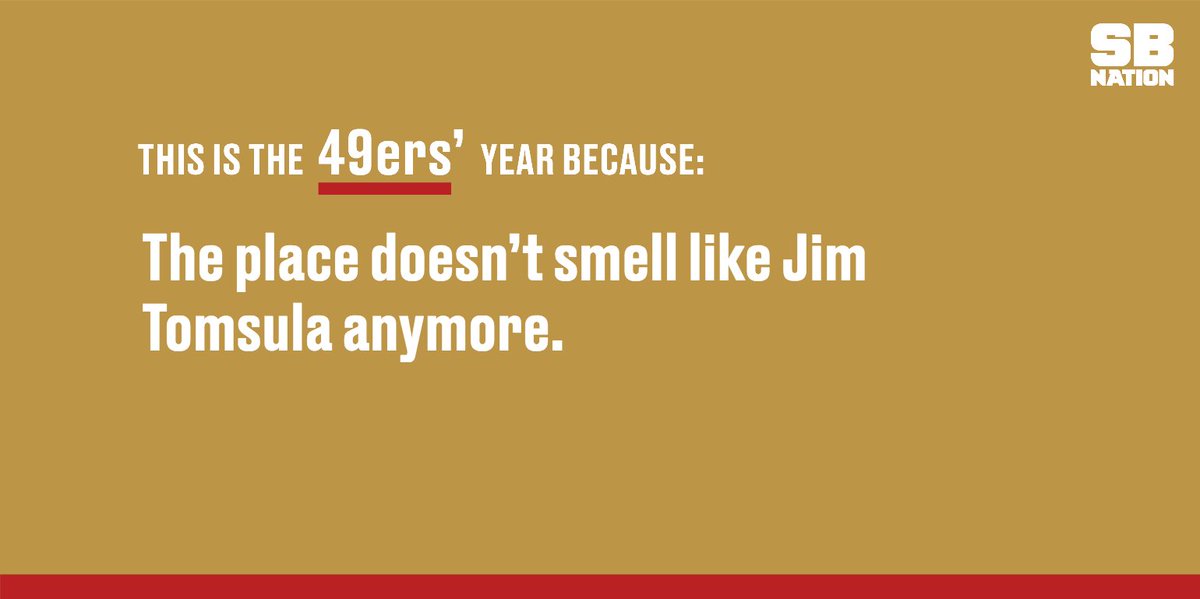
49ers Font Generator
49ers font generator. Nfl is short for national football league the highest level of professional football in the usa. This team had won five super bowl championships from 1981 to 1994. Download 8 free fonts by the designer nfl fonts for windows mac and linux.
Nfl font nfl font generator. The font used for it is very similar to dispatch a slab serif created by cyrus highsmith in 1999 though with a little difference on the brackets of letters. Every font is free to download.
And have been division champions 19 times between 1970 to 2019. It operates in html5 canvas so your images are created instantly on your own device. What font does san francisco 49ers use.
The san francisco 49ers is a professional american football team that was established on 4th june 1946. What is the meme generator. Free alternative fonts for san francisco 49ers logo.